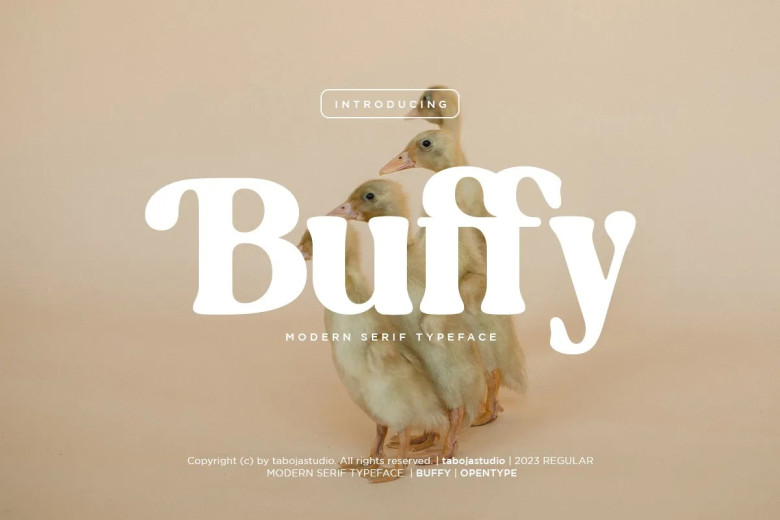
Buffy Font
Buffy Elegant Serif Font boasts an eye-catching retro style of display. Combining classic serif features with contemporary accents for an eye-catching and bold appearance. Buffy font is ideal for graphic design posters, projects and layouts that require memorable visual appeal, for optimal viewing and use of its Glyph variants we strongly advise using software such as Adobe Illustrator CC, Photoshop CC, Indesign or CorelDraw which support OpenType capabilities and Glyphs panels such as Adobe Indesign or CorelDraw.
Buffy Serif Font